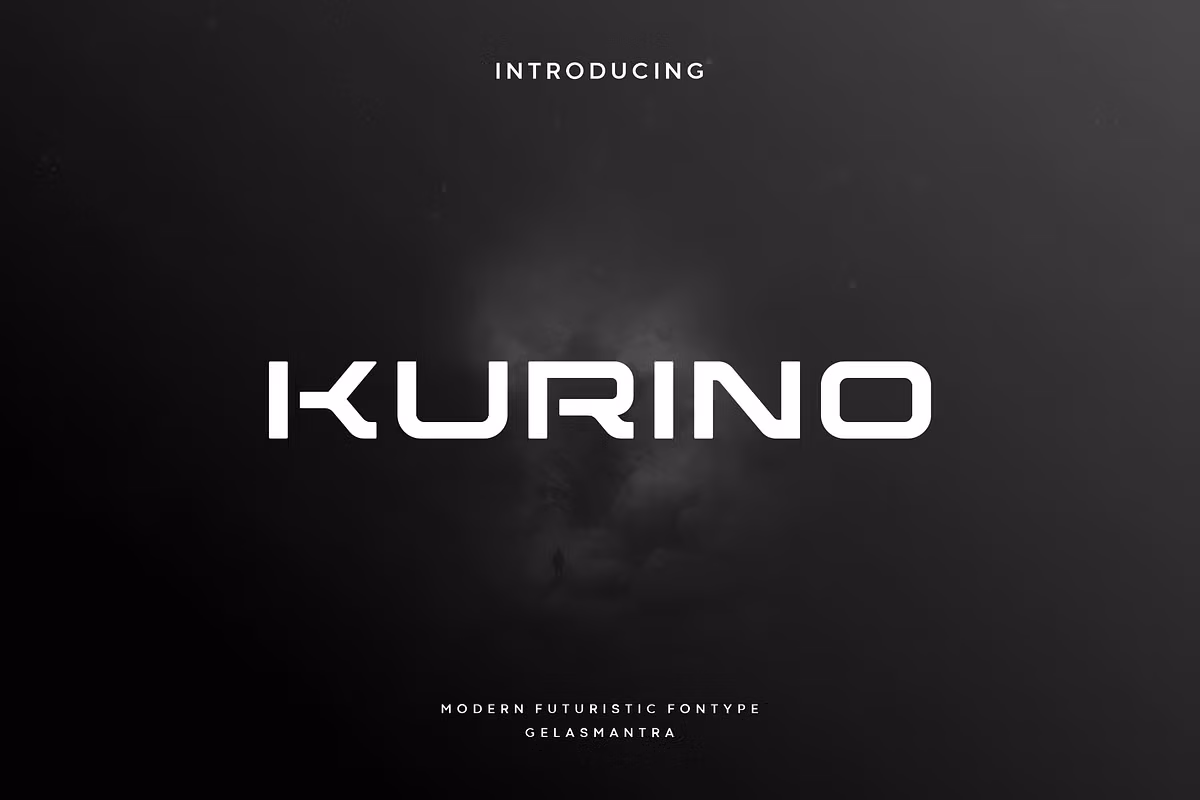
Kurino Font Free Download is a clean and contemporary typeface that blends minimalism with a touch of personality. With its smooth curves, balanced proportions, and subtle geometric influence, Kurino is perfect for branding, editorial layouts, product packaging, websites, and creative presentations.
Its versatile style works beautifully for both headlines and body text, offering clarity and modern elegance in every use. Whether you're designing for a startup, fashion label, or lifestyle blog, Kurino adds a polished, professional edge to your typography.
Designers love Kurino for its readability, flexibility, and ability to elevate both digital and print projects. Want to give your next design a sleek, modern voice? Download Kurino Font Free Download and let your visuals speak with clean sophistication.